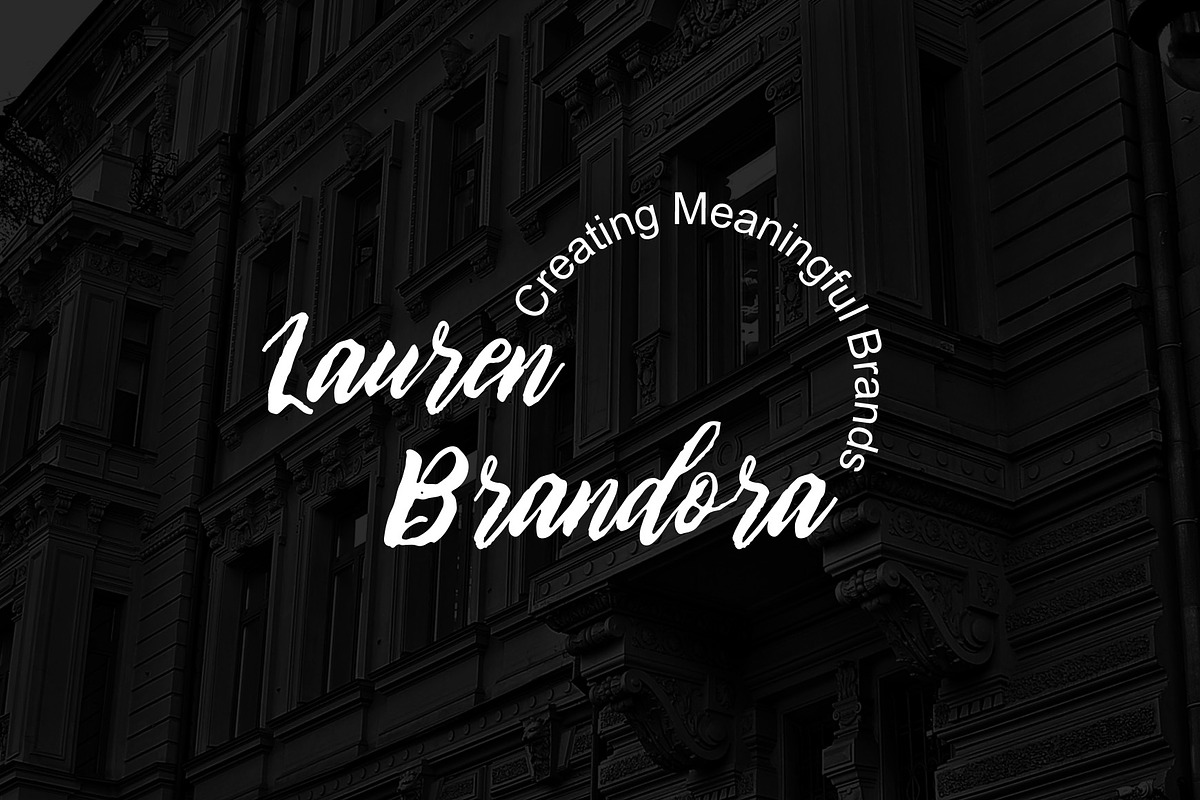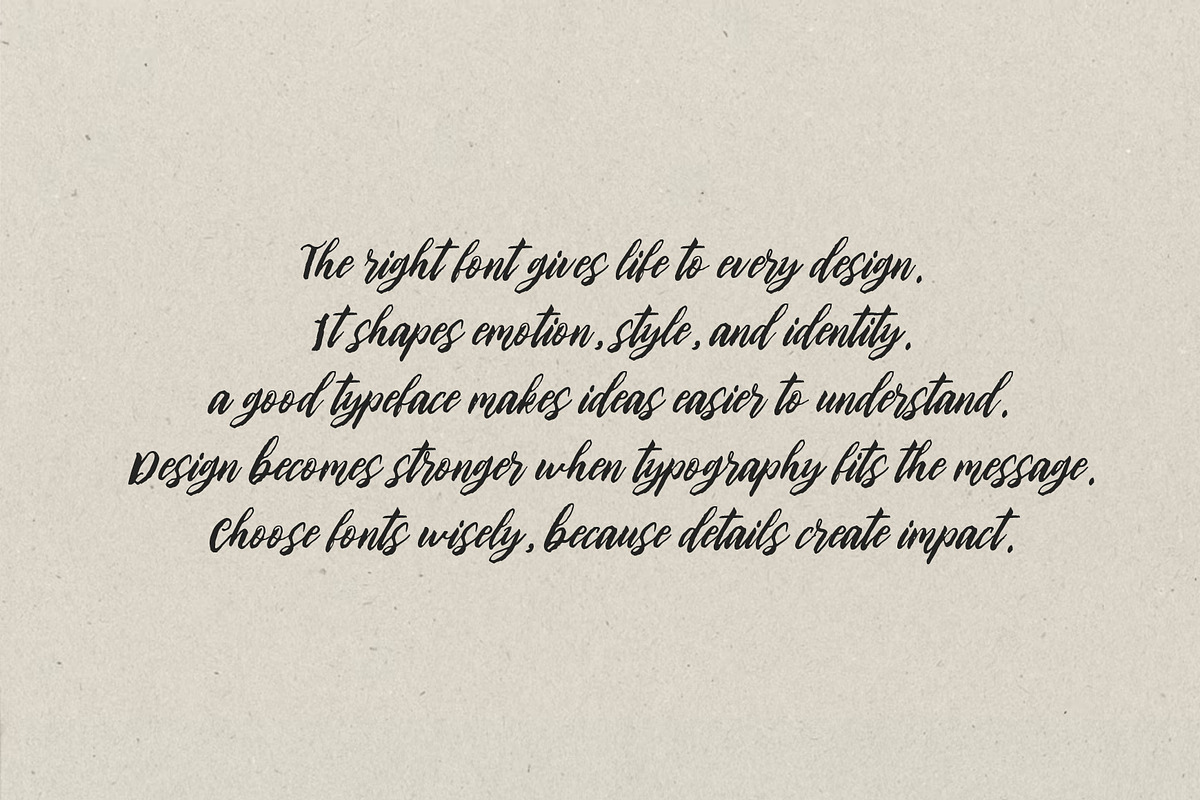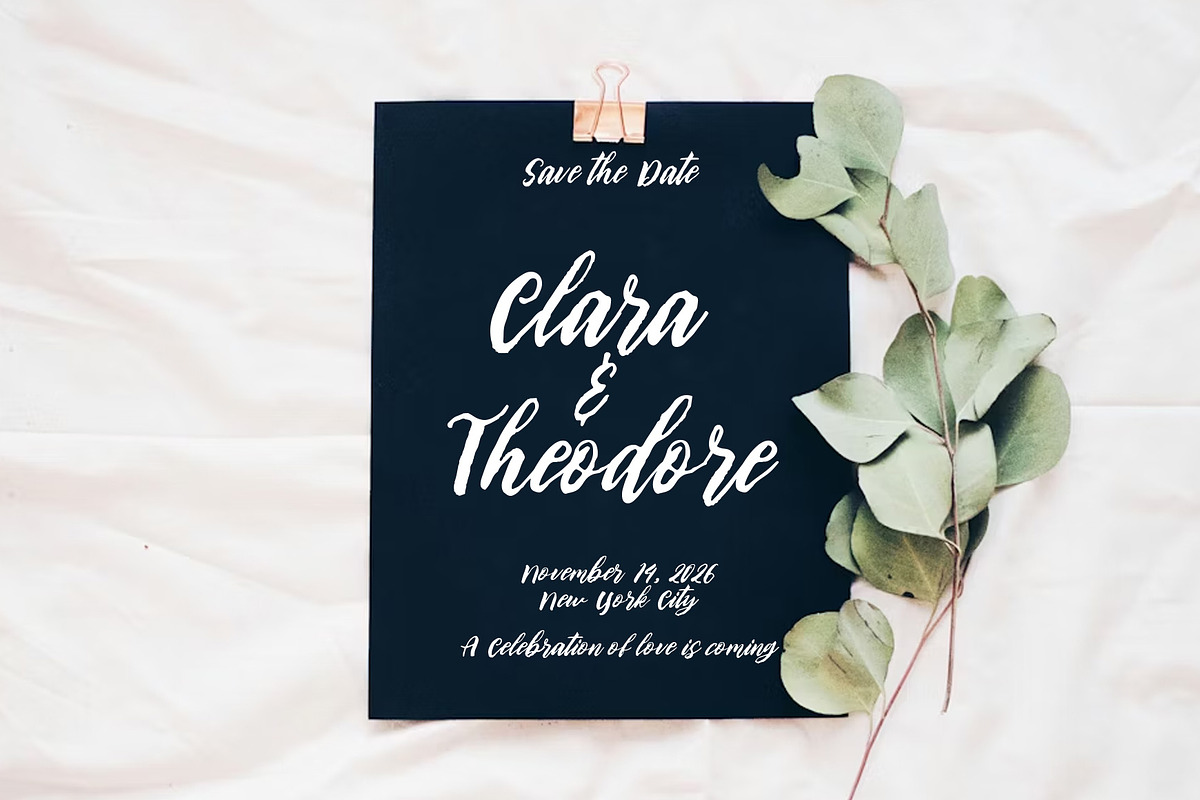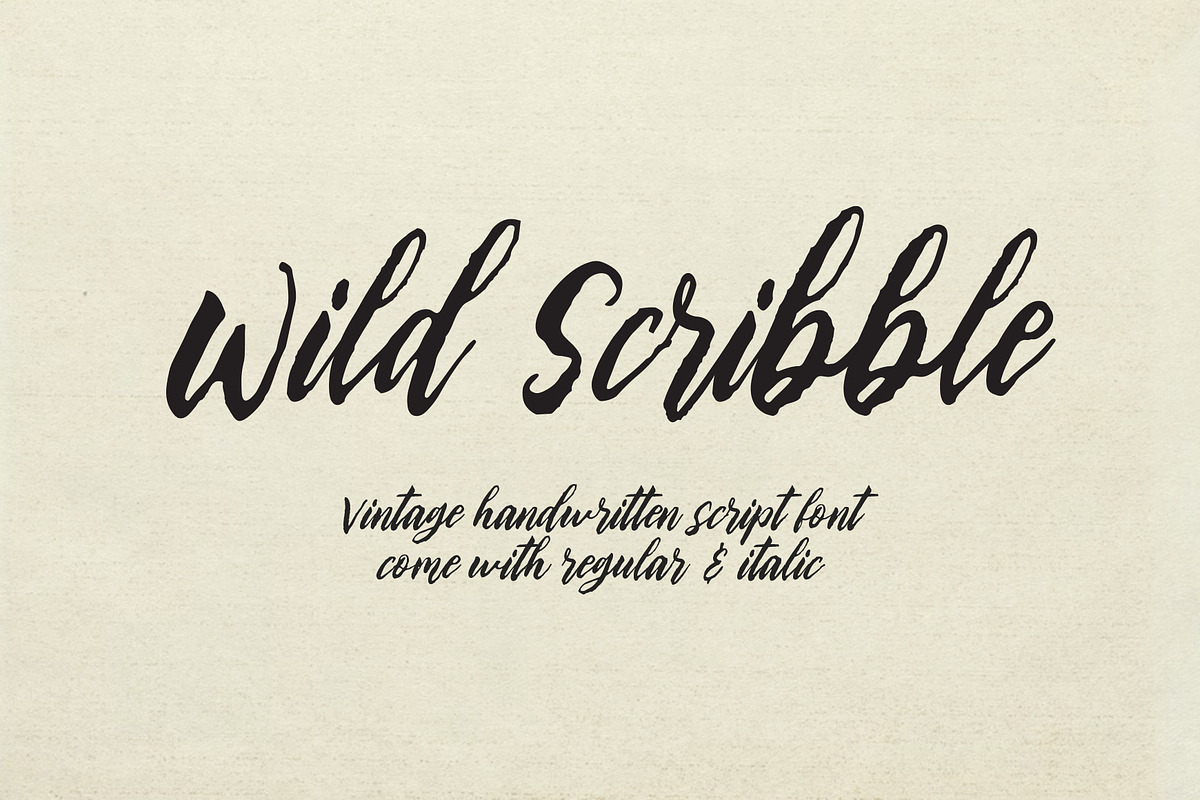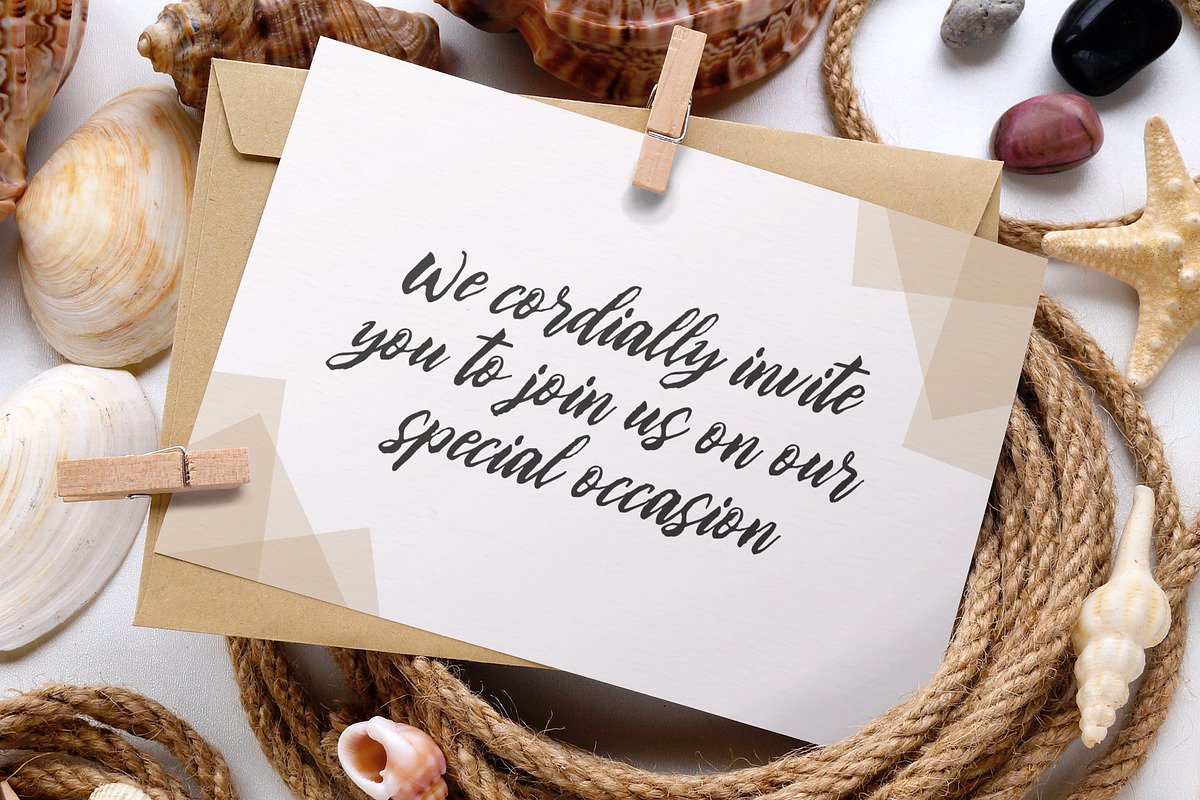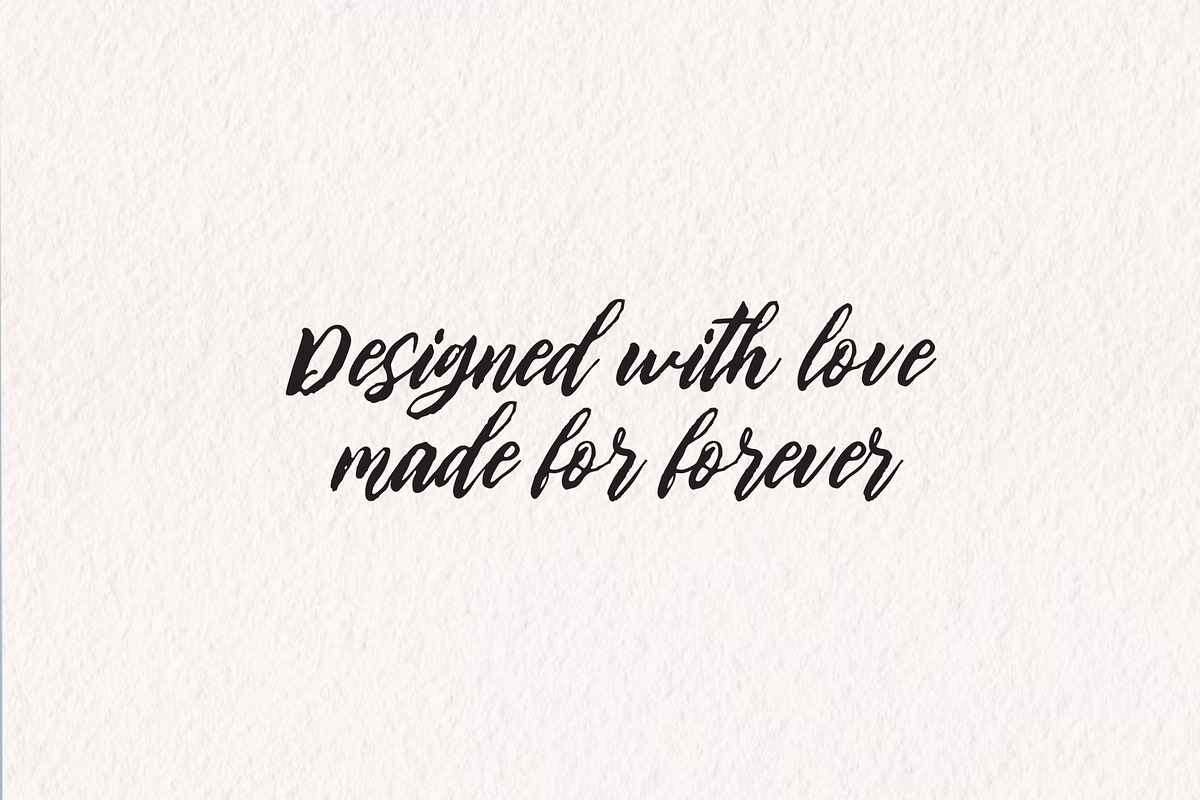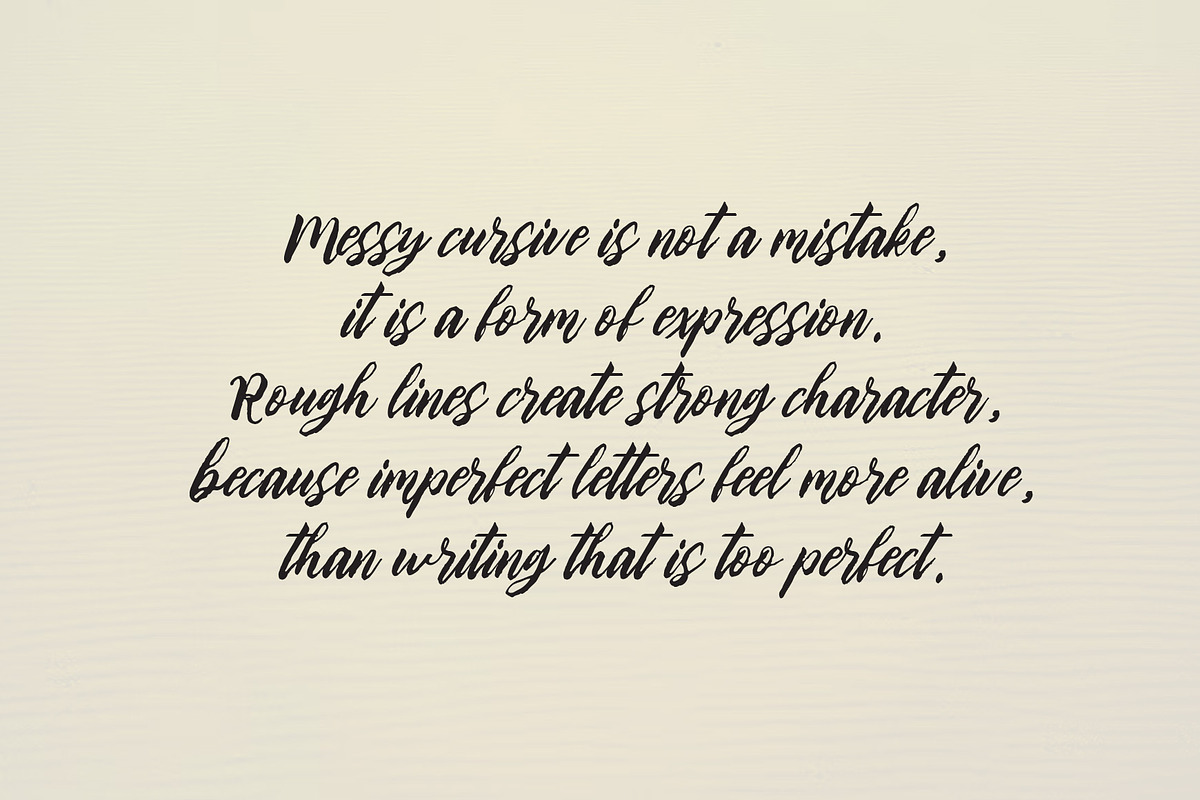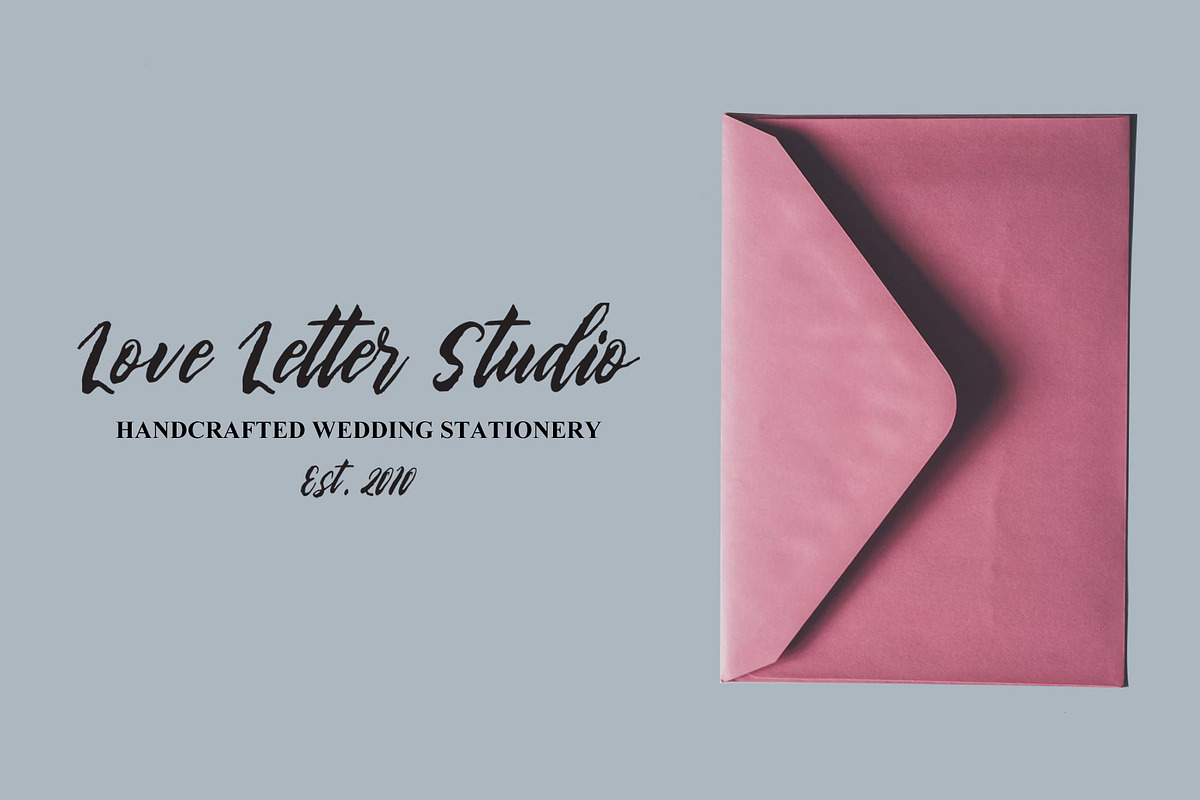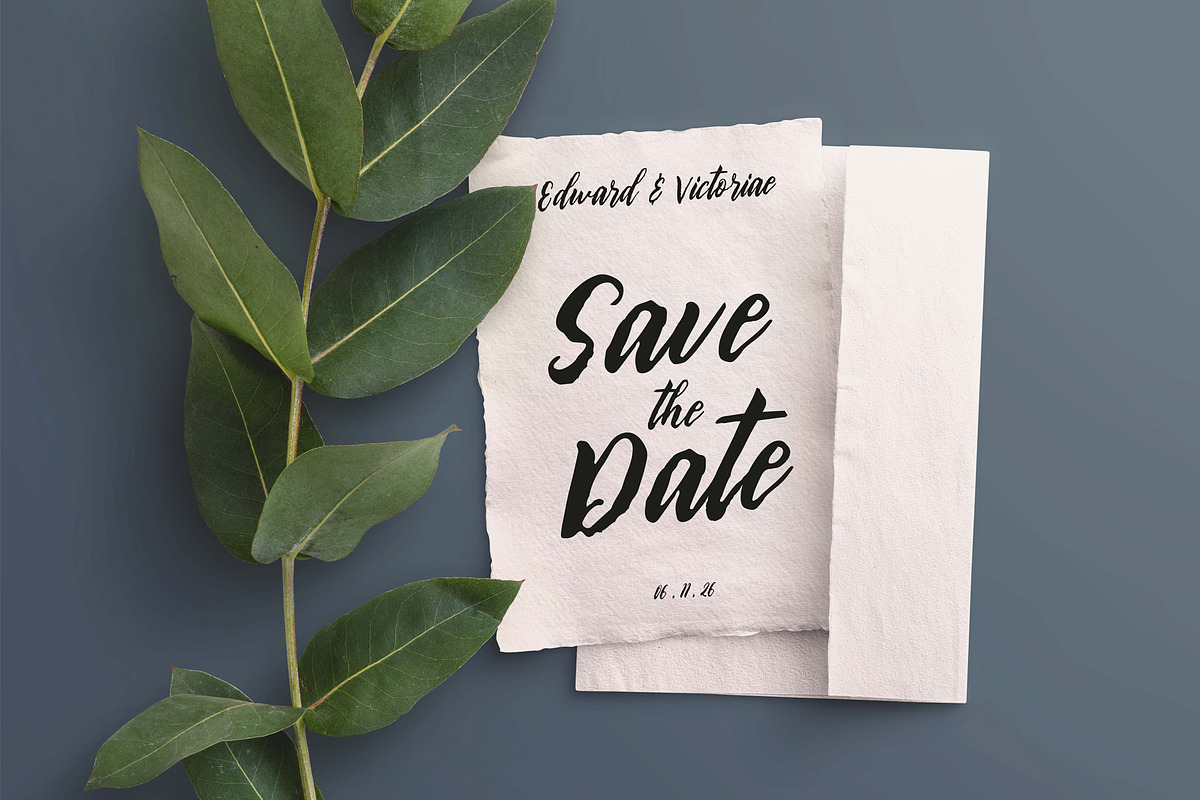
Wild Scribbble - Vintage Script Font
Wild Scribble is a vintage handwritten script font with natural brush strokes and elegant flowing characters. Designed to bring warmth, personality, and authentic handcrafted charm to branding, wedding invitations, logos, packaging, social media graphics, and editorial designs. Its smooth connections and expressive letterforms create a stylish, timeless look that stands out across both modern and classic projects.